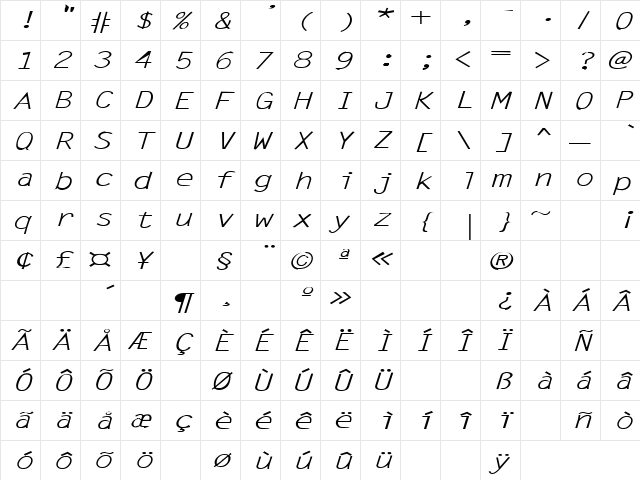
Celebration Day 8 Regular Font Preview
Celebration Day 8 Regular
Design Context for Celebration Day 8 Typeface
Celebration Day 8 is a composed and adaptable typeface that performs quietly and consistently across a wide range of design contexts.
Pro Tip: Use Celebration Day 8 in both headline and body roles to test its range before committing to a single application.